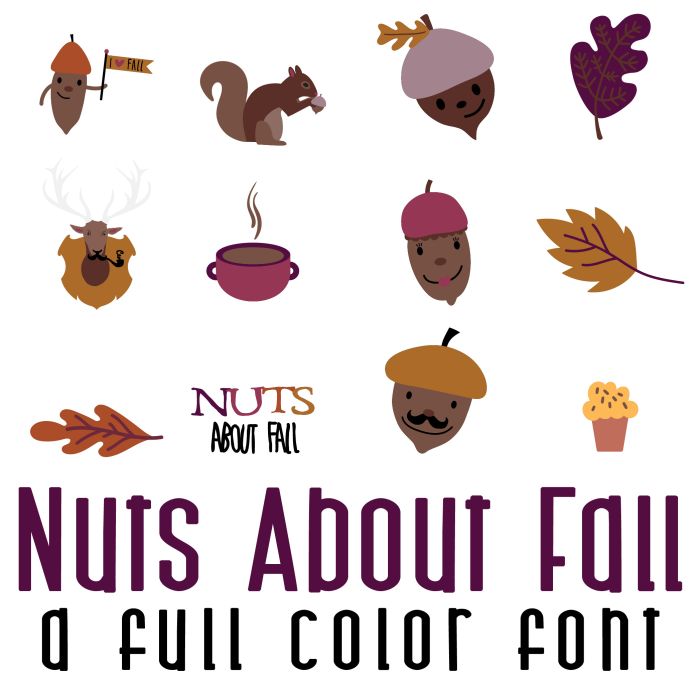
This fun full color font features 26 fun fall images of nuts and more! Perfect for cards, crafts, parties, gifts, decor, planner stickers, classrooms, scrapbook pages and more!